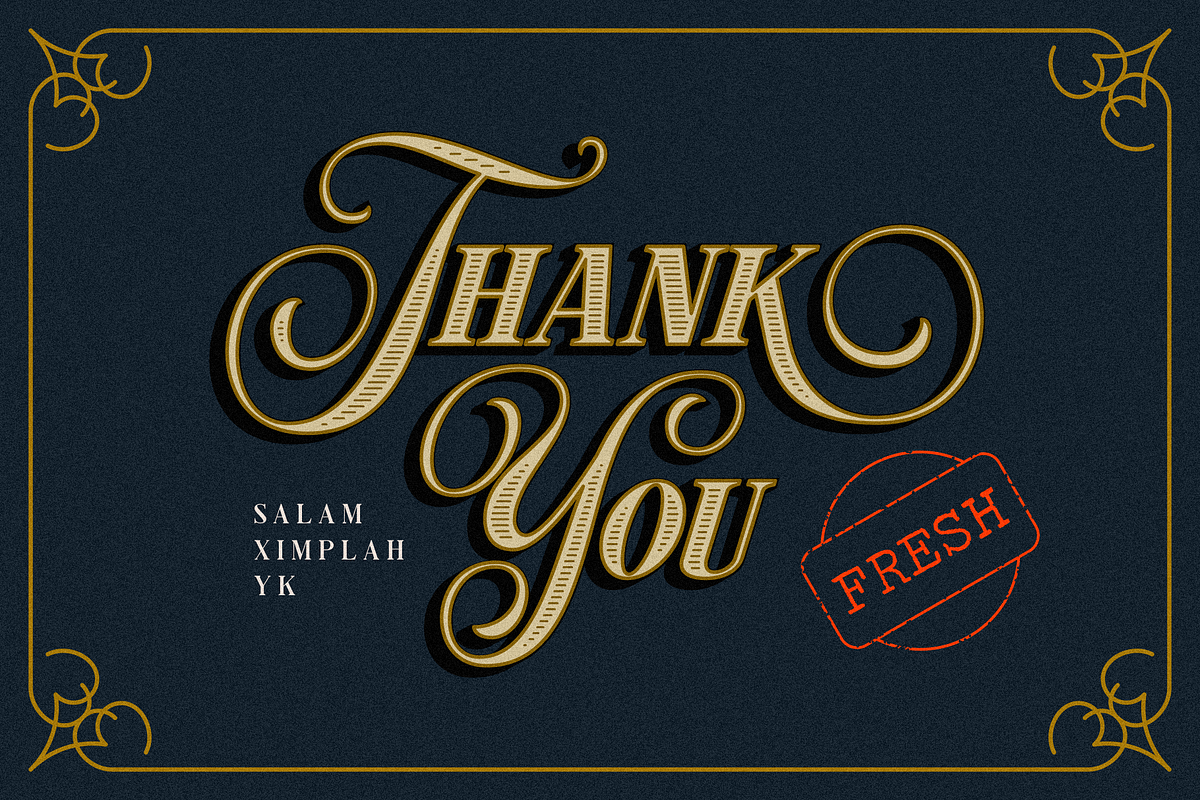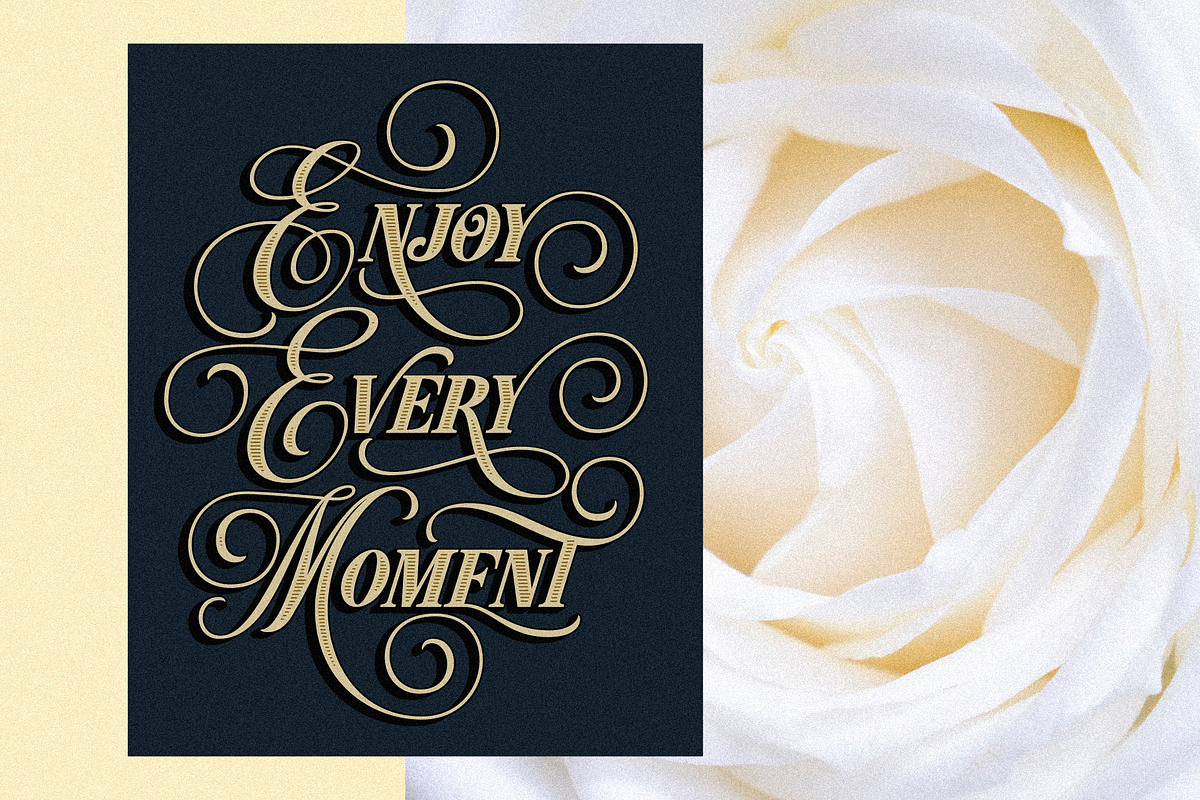
Hondurhas Layered
Introducing HONDURHAS , a new concept that combined script uppercase with serif lowercase for display purposes. Come up with many playful alternates, so you could mix n match for your needs. Still not good enough? Hondurhas also came up with layered system. 07 FONTS TOTAL !. Because we believe, more layer is more fun. With all those fact, this font is perfect for your many design projects, such as Flyer, Logo Design, Badge, Packaging, Invitation and more.
Love this for the creative "P" which is a difficult capitol letter to look artistic and well with other letters. Since my company starts with this, it needed to look good but still be able to be read without difficulty. This font does that. Love the curly serifs and extras included with the font. Easily downloaded and installed. Thank you!